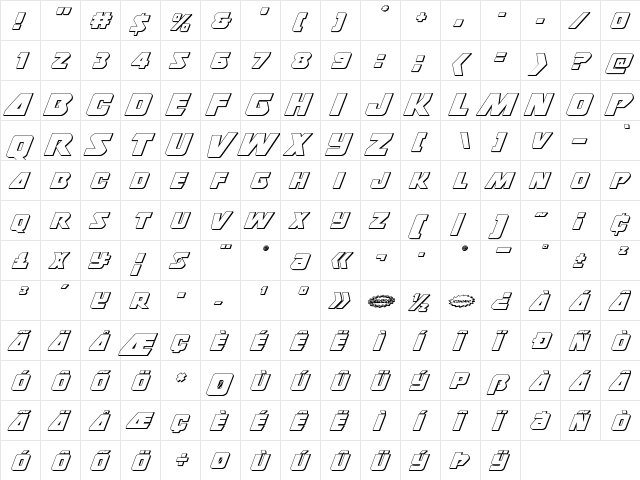
Thunderstrike 3D Regular
Design Context for Thunderstrike 3D Typeface
Thunderstrike 3D is a composed and adaptable typeface that performs quietly and consistently across a wide range of design contexts.